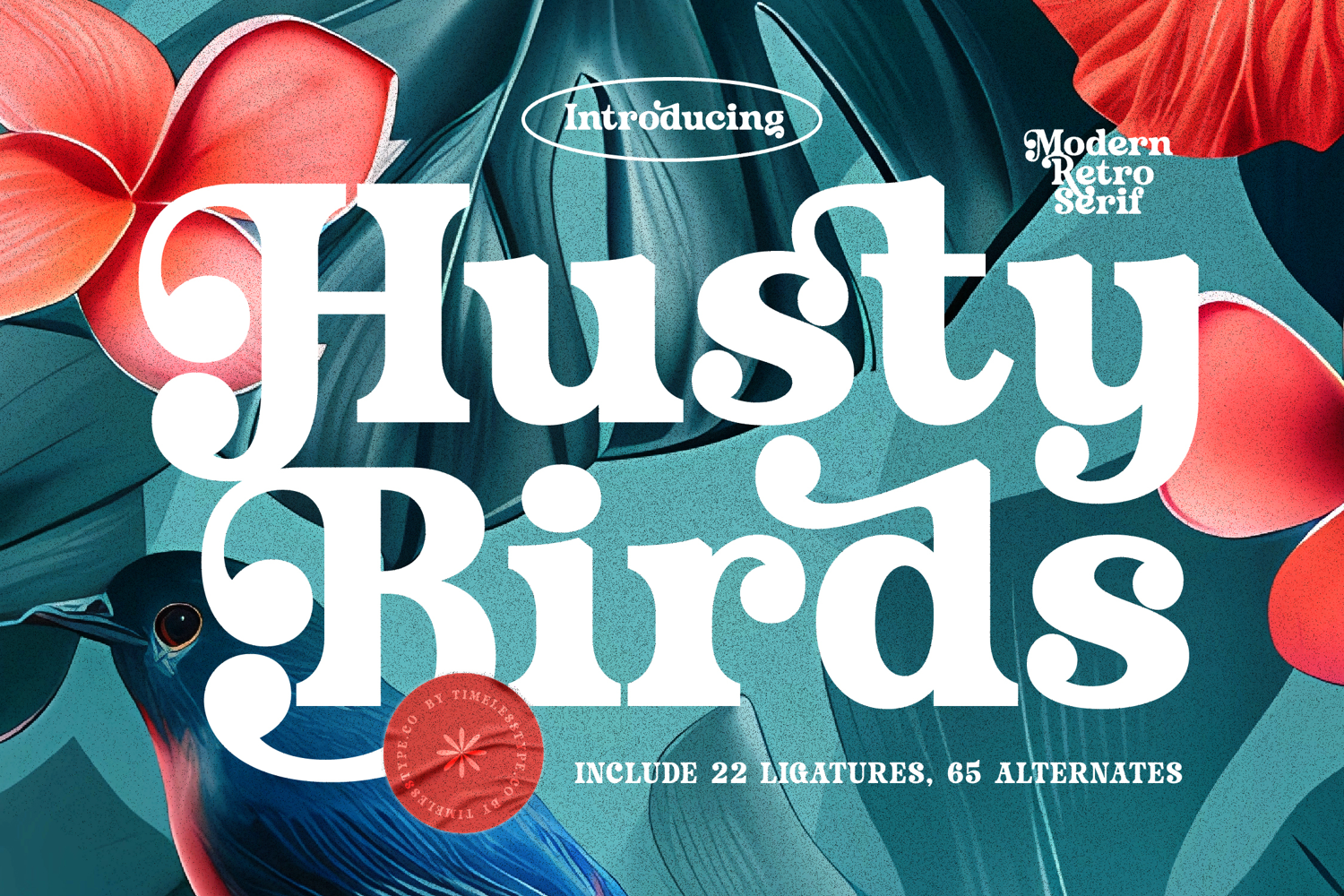
Husty Birds - Modern Retro Serif
Husty Birds is a modern retro serif font that blends bold structure with playful vintage curves, creating a typeface full of charm and character. Its thick strokes, rounded edges, and decorative terminals give it a nostalgic yet contemporary feel, making it a perfect choice for designs that want to balance classic retro vibes with modern versatility. Equipped with 22 ligatures and 65 alternates, Husty Birds provides designers with plenty of stylistic options, ensuring typography never feels repetitive but instead dynamic and full of personality.
This font shines in headline typography, where its bold and stylish forms immediately capture attention across posters, magazine covers, and branding materials. In editorial design, Husty Birds adds flair and sophistication, making section headers and titles feel unique and engaging. For branding and logo design, it communicates a playful yet confident identity, perfect for creative businesses, lifestyle brands, or boutique products that want to stand out with originality and charm.
Husty Birds also works beautifully in packaging design, particularly for beverages, artisanal goods, or retro-inspired products where typography must convey both authenticity and creativity. In movie posters and event flyers, the font adds cinematic energy and a nostalgic touch, amplifying the storytelling aspect of the design. For advertising campaigns, both digital and print, Husty Birds ensures key messages are bold, stylish, and unforgettable.
In the digital world, Husty Birds adapts seamlessly to social media graphics, website headers, and promotional content, where its retro-modern personality makes posts feel vibrant and engaging. It is equally fitting for merchandise, apparel, and lifestyle products, bringing playful sophistication to logos and slogans. With its multilingual support, Husty Birds works across different cultures and global projects, making it a practical yet highly expressive design tool.
Ultimately, Husty Birds is more than just a retro serif font—it is a visual storyteller. Its unique blend of modern boldness and retro charm ensures that every project, whether in headlines, branding, packaging, advertising, or digital media, carries a memorable and stylish typographic voice.